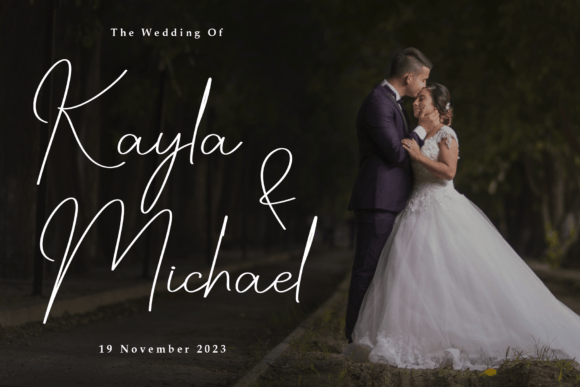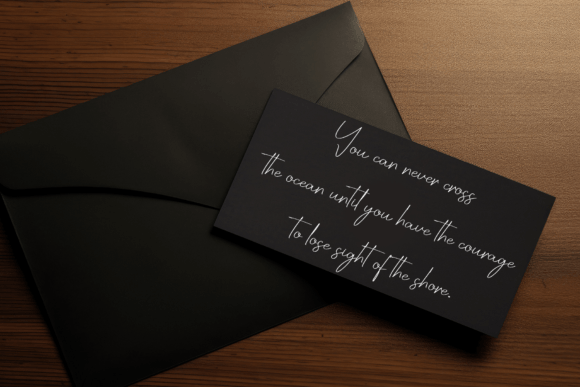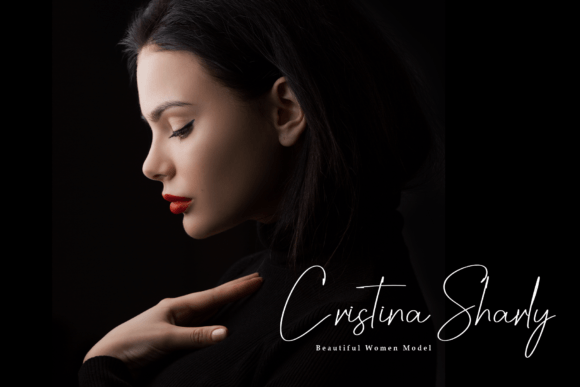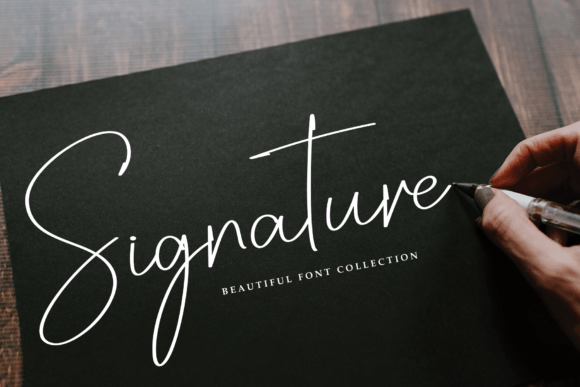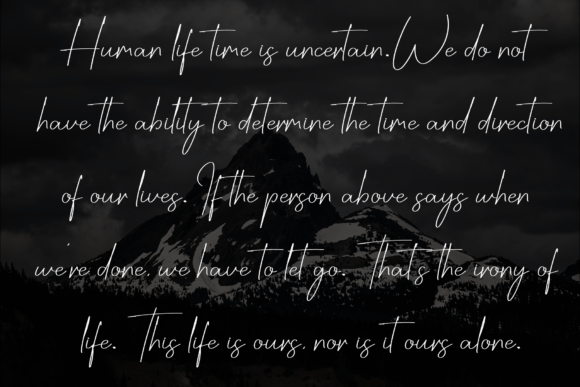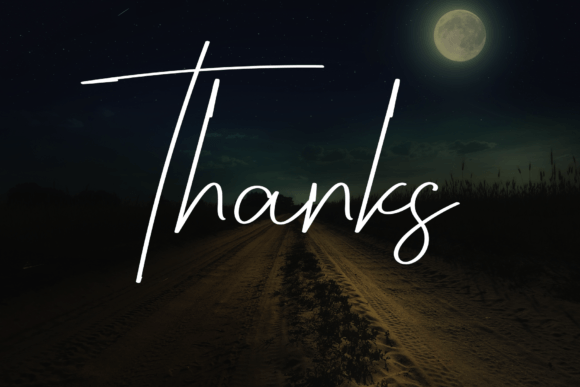
Introducing Darknight Font: Elevate Your Designs with Elegance and Sophistication
Are you on the hunt for a font that exudes luxury, sophistication, and a touch of modern flair? Look no further than Darknight Font, a stunning handwritten typeface that is sure to capture your heart. With its perfect blend of classic calligraphic influences and contemporary style, Darknight is the ultimate choice for designers and crafters seeking to elevate their projects to new heights.
The Essence of Darknight Font
Darknight Font is a masterfully designed handwritten font that boasts an exquisite aesthetic, making it a true favorite among designers and typography enthusiasts. Its classy calligraphic roots are evident in its fluid strokes and elegant letterforms, yet it feels refreshingly modern and current. This unique fusion of traditional and contemporary elements makes Darknight an incredibly versatile font, suitable for a wide range of design applications.
Unleash Your Creativity with Darknight
Whether you’re working on a branding project, crafting a beautiful wedding invitation, or designing a stylish website, Darknight Font is the perfect choice to add a touch of sophistication and glamour. Its elegant appearance and effortless flow make it ideal for use in:
- Web headers and titles
What Sets Darknight Apart
So, what makes Darknight Font stand out from the crowd? Here are just a few reasons why designers and crafters are falling in love with this exquisite typeface:
- Unique and elegant design: Darknight’s distinctive letterforms and flowing strokes make it a true showstopper.
- Versatility: This font can be used in a wide range of design applications, from formal and traditional to modern and trendy.
- Easy to read: Despite its elegant appearance, Darknight is incredibly legible, making it perfect for use in body text and captions.
- High-quality design: Darknight Font is crafted with precision and attention to detail, ensuring a flawless appearance in any design.
Tips for Using Darknight Font
To get the most out of Darknight Font, here are a few expert tips to keep in mind:
- Pair it with a sans-serif font: Combine Darknight with a clean, modern sans-serif font to create a striking contrast.
- Experiment with colors: Darknight looks stunning in a range of colors, from rich jewel tones to metallic shades.
- Play with font sizes: Use Darknight in a variety of font sizes to create visual interest and hierarchy in your design.
In conclusion, Darknight Font is a truly exceptional handwritten typeface that is sure to become a favorite among designers and crafters. Its exquisite design, versatility, and elegance make it the perfect choice for a wide range of design applications. Whether you’re looking to add a touch of sophistication to your branding, create a beautiful wedding invitation, or design a stylish website, Darknight Font is the ultimate choice. So why wait? Fall in love with Darknight and bring your projects to the highest levels!